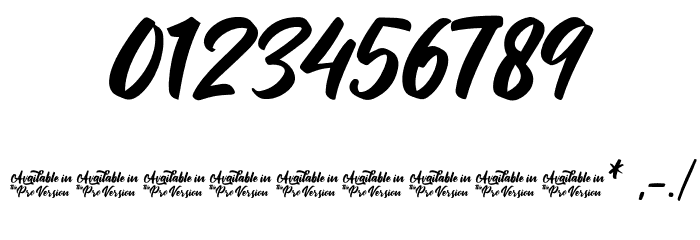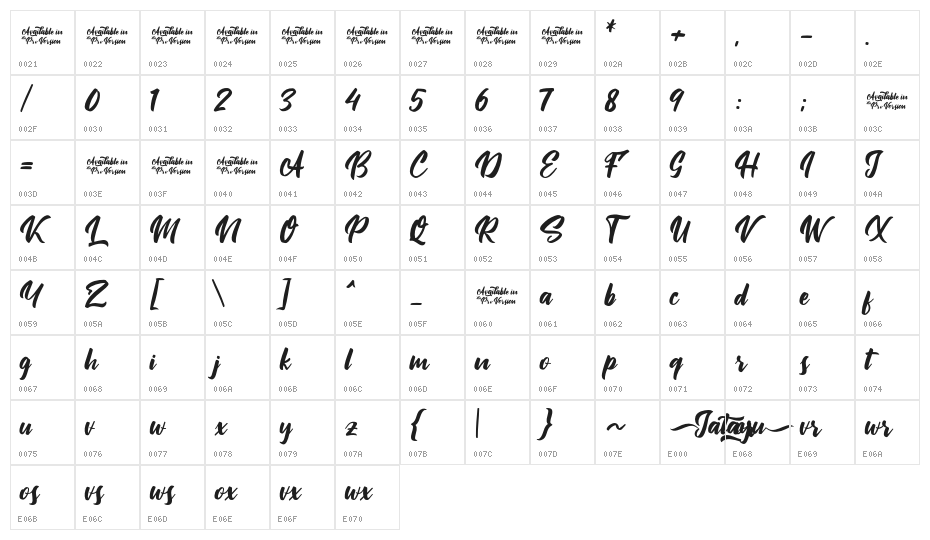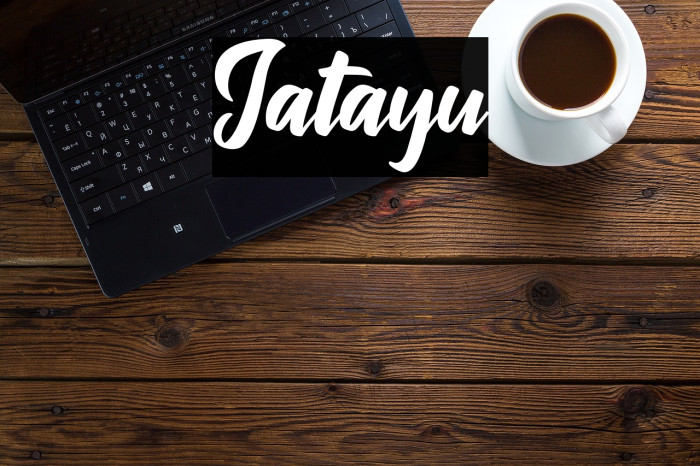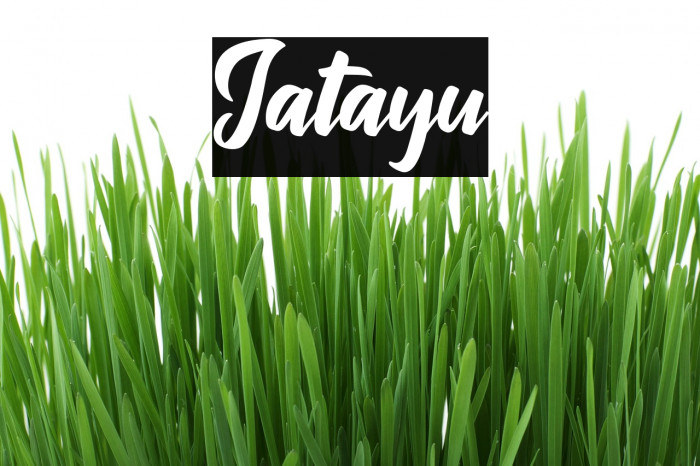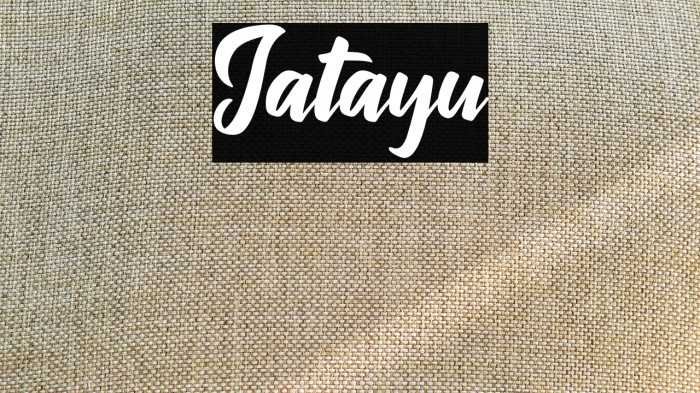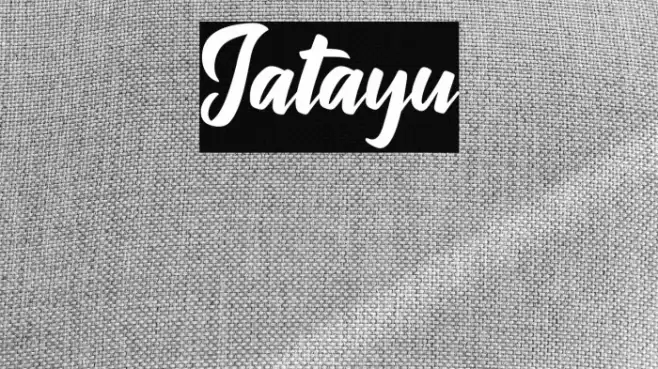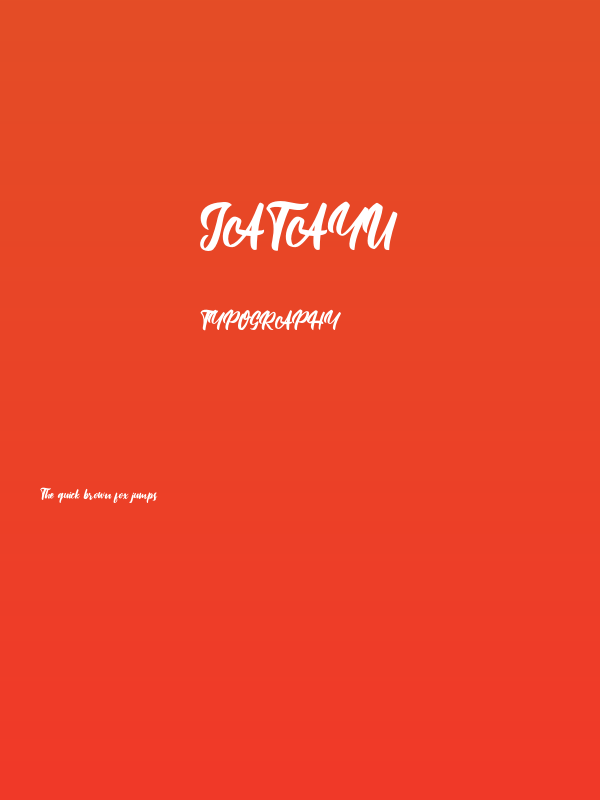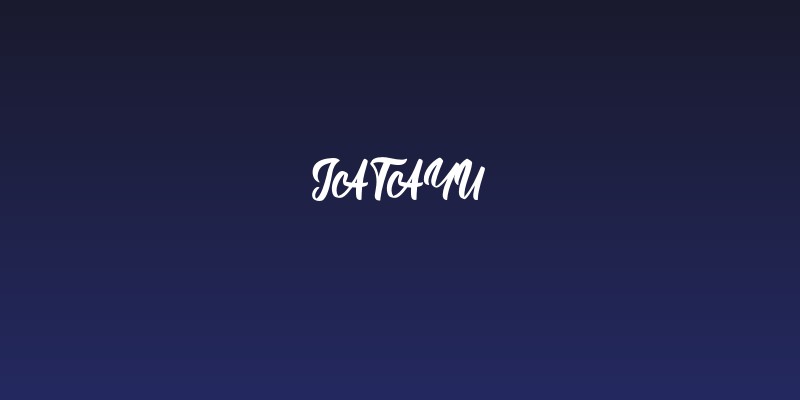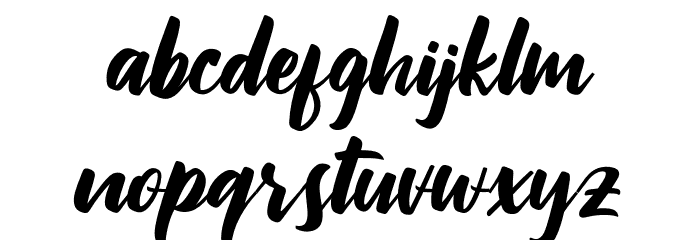
Jatayu Font
Jatayu Description
This font features a bold and expressive script style, characterized by its fluid and dynamic strokes. The letters are connected, giving it a cohesive and flowing appearance, reminiscent of traditional calligraphy. The uppercase letters are particularly striking, with dramatic flourishes and a sense of movement. The lowercase letters maintain a consistent style, with smooth curves and a slightly informal touch. The numerals are well-integrated, matching the overall aesthetic with their rounded and bold forms. Special characters are included, maintaining the same stylistic elements, ensuring versatility in various design contexts. This font is ideal for projects that require a personal and artistic touch, such as invitations, branding, and creative headlines.
| Proposed Projects | Ideal for wedding invitations, branding, logos, and creative headlines. |